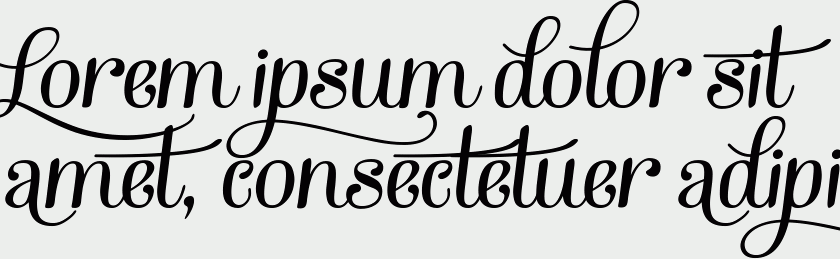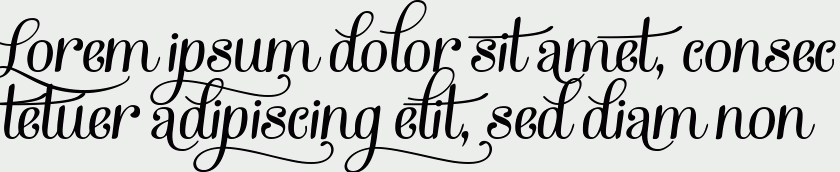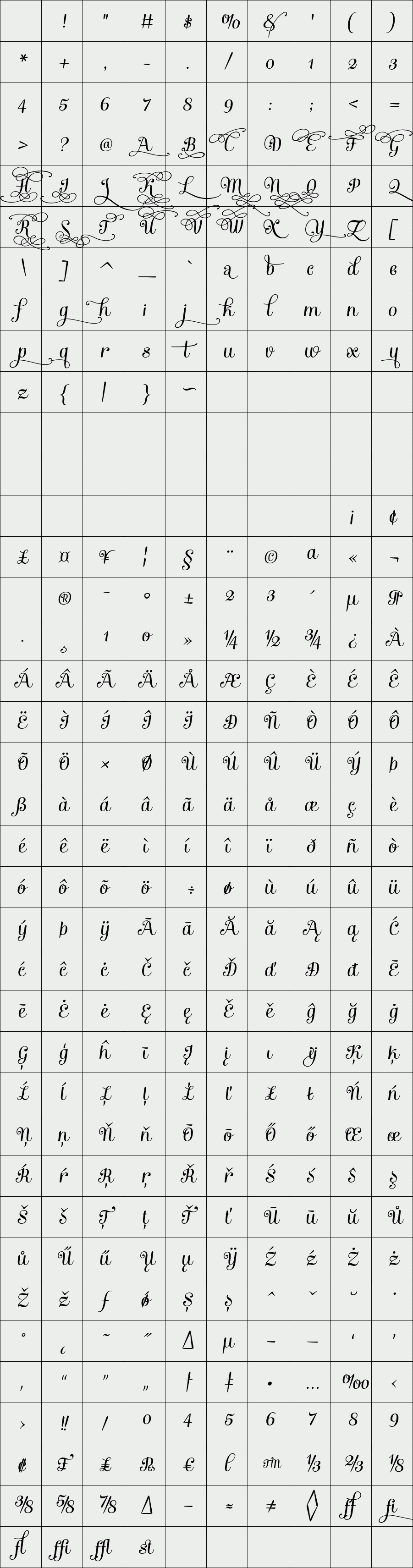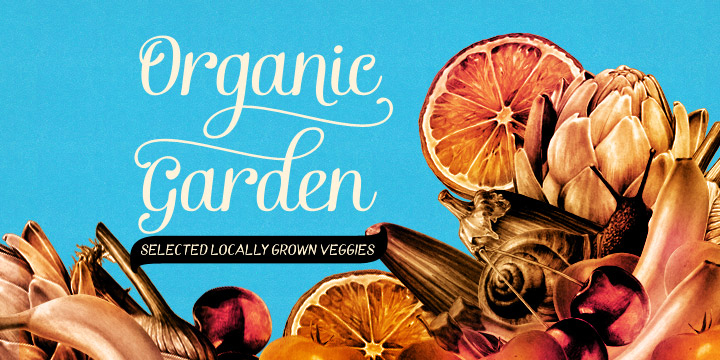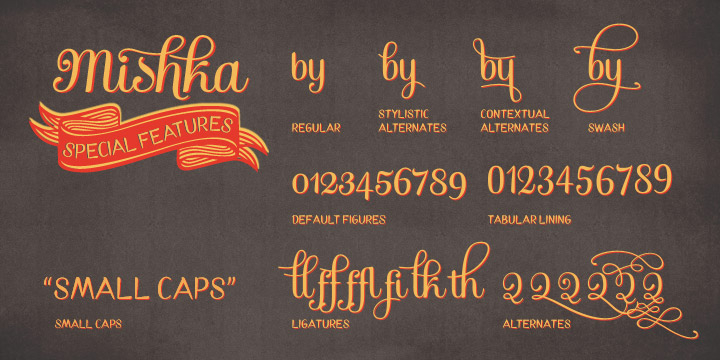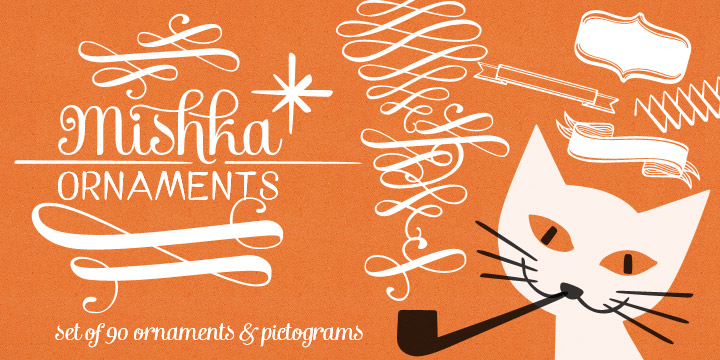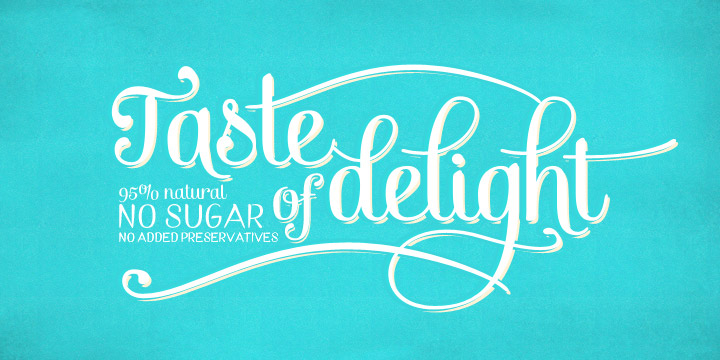
Mishka
Mishka is a classy upright script, closely related to Emil Bertell’s recent Barber and Pepita Script releases. Mishka has clear letterforms yet plenty of options for more decorative custom headlines. Turn on Swash, Stylistic Alternates or Contextual Alternates in any Opentype savvy program, or pick any of the extra alternates from the glyph panel. Mishka’s Small Caps help to maintain legibility even in small sizes.
Mishka Ornaments is a set of 90 typographical ornaments designed to work perfectly with the script font.